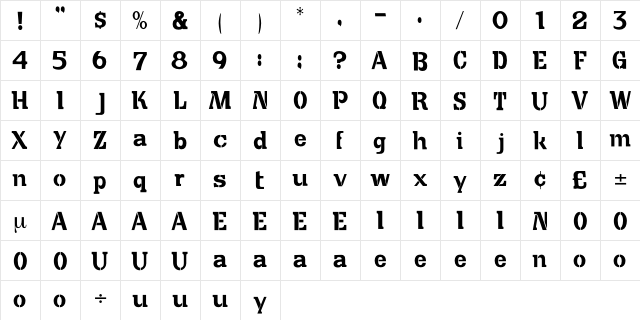
Mexico Regular
Design Context for Mexico Typeface
Mexico offers clean, dependable letterforms without strong stylistic allegiance, making it a practical choice for designers who need flexibility.
Pro Tip: Use Mexico in both headline and body roles to test its range before committing to a single application.